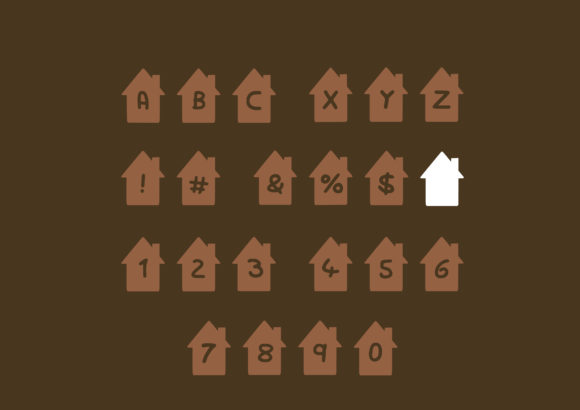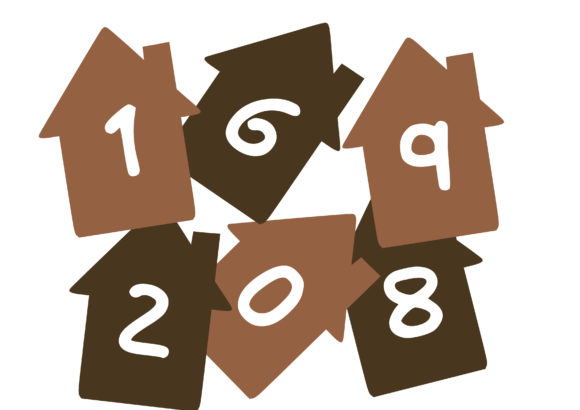
Introduction to Play House Font
Play House is a set of silhouette homes with a playful, child-like decorative font perfect to spell out anything to do with our favorite place, home.
Handwritten with rounded sides make it a friendly and joyful font Great for schools, home teaching, or a craft project.